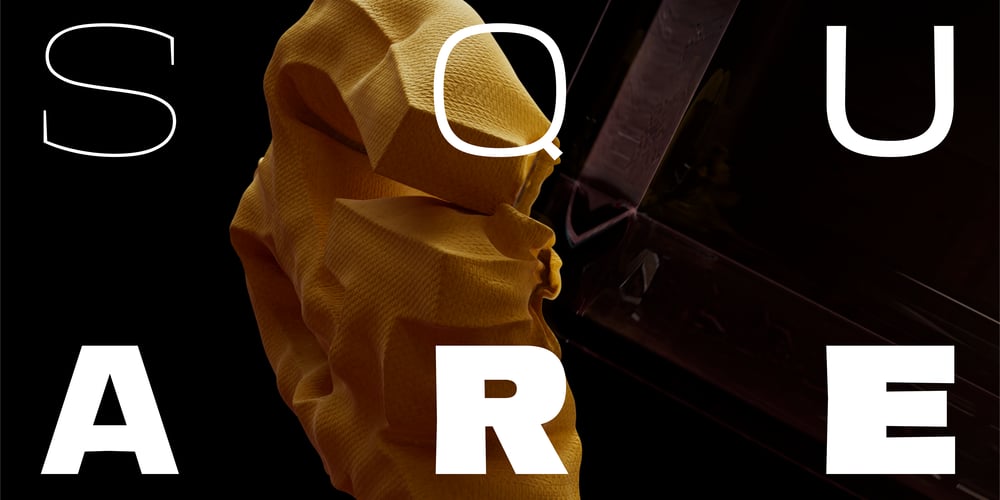
Square Mono VF Font Family was designed by Raphael Lefeuvre and published by Blaze Type. Square Mono VF contains 1 styles and family package options. Square font is a mono font, each sign is built within the constraint of a square, which enables it to be written from top to bottom and horizontally and vice versa. The initial idea for Square font was to imagine a square (a small park, in French), seen from above: if you look at the lightest version, the shape of the letter defines the park by its external contour. If you consider the boldest version, it defines the surface of the park…. The outline of the letters are lively and slightly flared, the counter-forms now look like kids playing there on a Saturday. The character fills and empties from the inside while keeping the same outline in each version, which allows many games of superposition with this mono font.